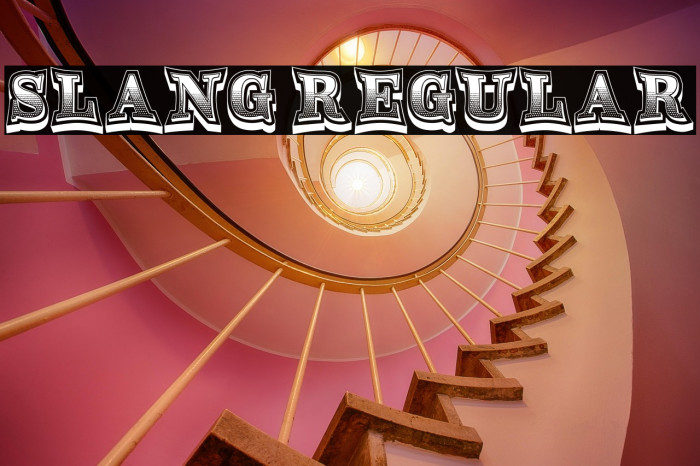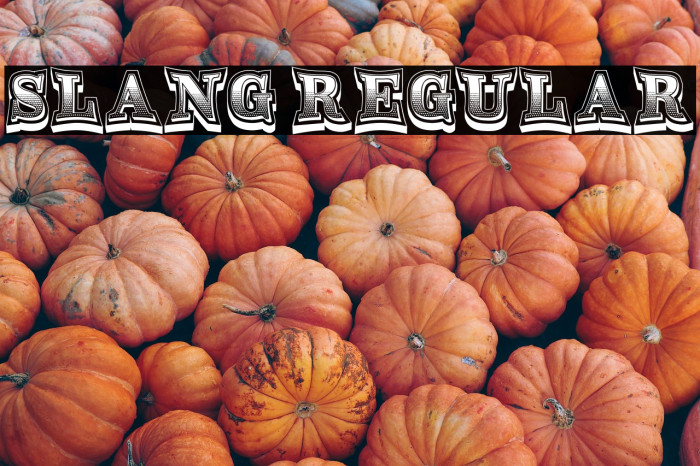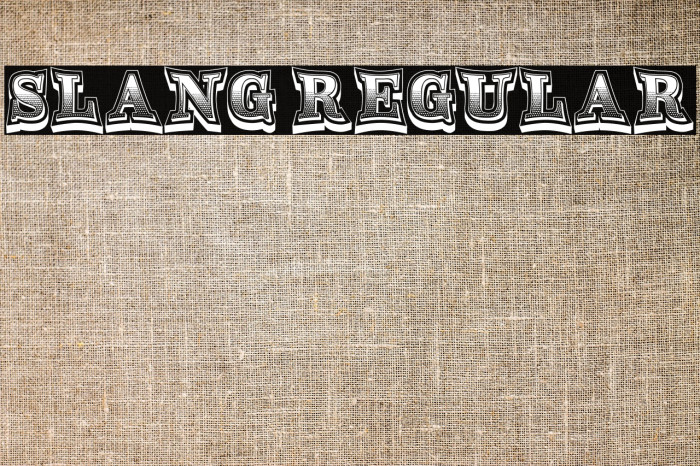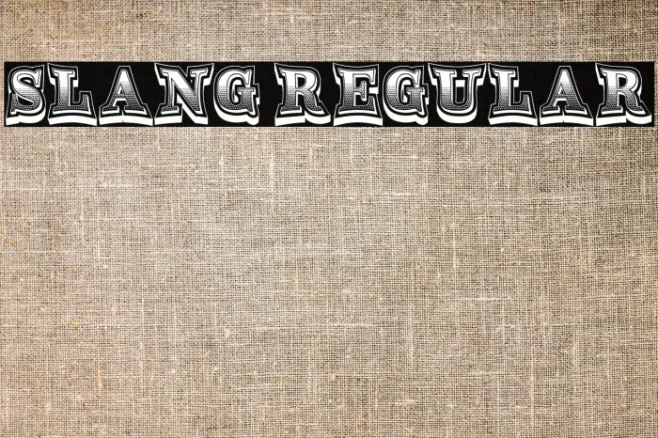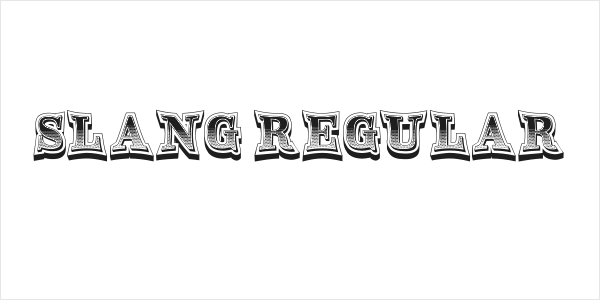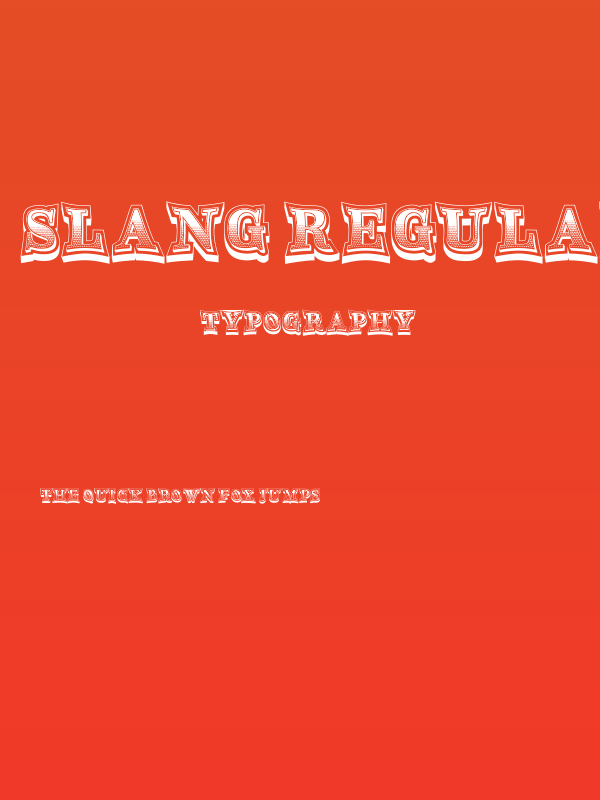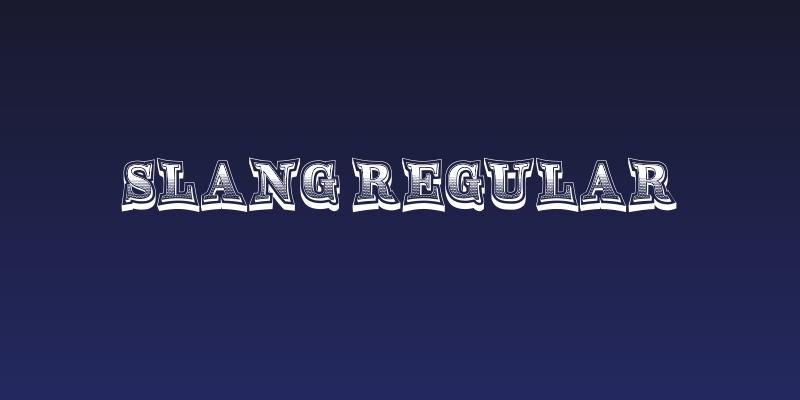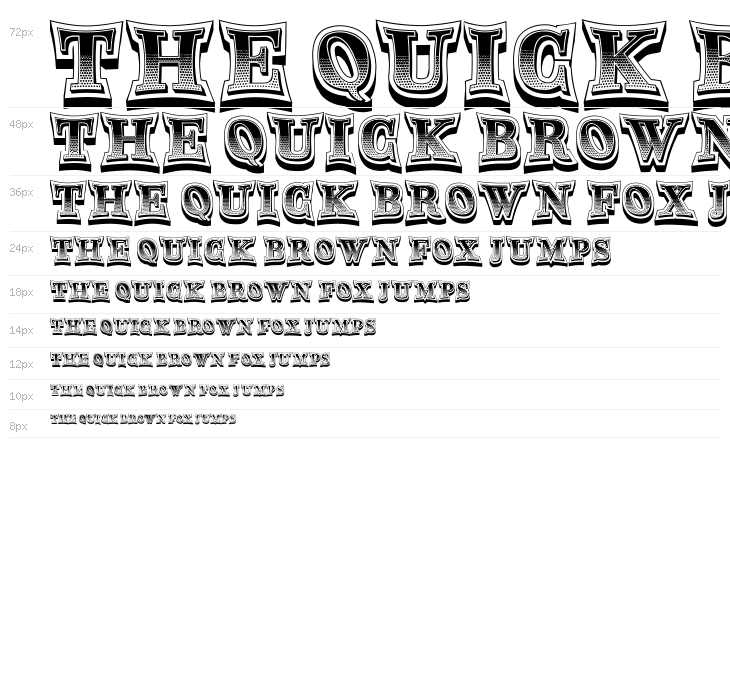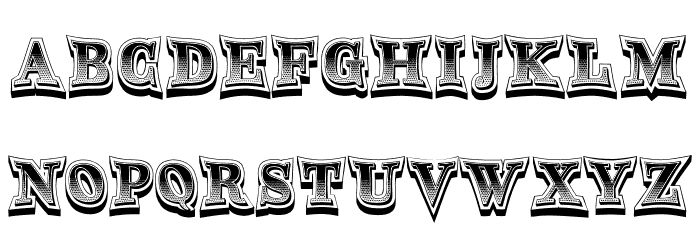
Slang Regular Font
Slang Regular Description
This font features a bold, decorative style with a vintage flair. Each character is outlined with a thick black border, giving it a strong presence. The interior of the letters is filled with intricate patterns, adding texture and depth. The overall design is reminiscent of old-school tattoo art or vintage circus posters, making it highly distinctive and eye-catching. The uppercase letters are particularly striking, with exaggerated serifs and a three-dimensional appearance that suggests movement and energy.
| Proposed Projects | Ideal for vintage-themed posters, tattoo designs, circus or carnival event flyers, and retro branding projects. |